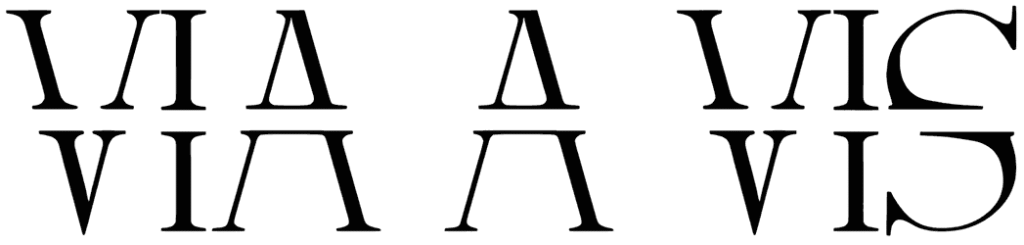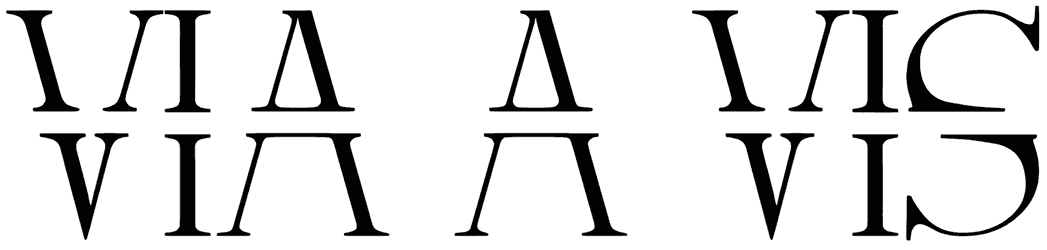
Via-A-Vis Font
If you are tired of formal and duplicate fonts, Via-A-Vis can add acceptable variety to your designs and quickly draw the audience’s attention to your posters, websites, applications, and logos.
Since its characters are not uniformly straight and consist of several different parts, it looks very captivating and covers the lack of lowercase letters. This font carries a sense of classic, vintage, and dynamic.